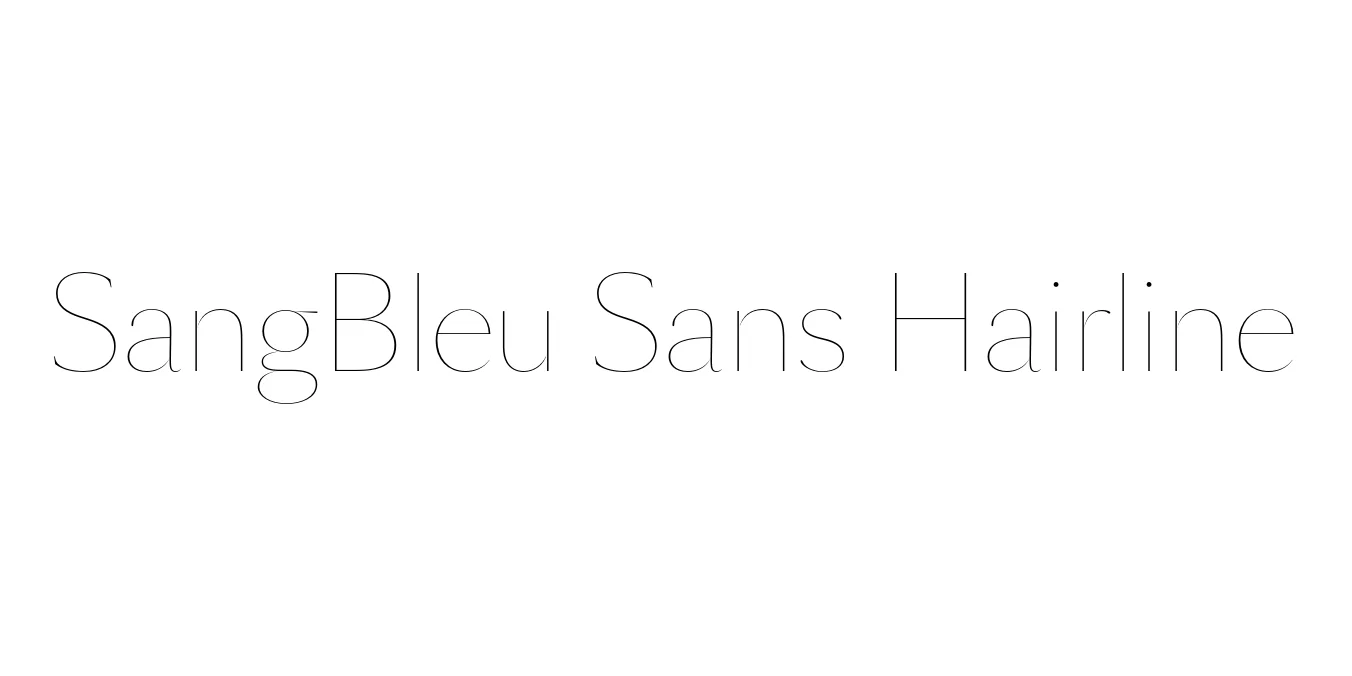
SangBleu Sans Hairline
Designed by Swiss Typefaces
SangBleu Sans is part of the extensive SangBleu typeface family designed by Swiss Typefaces. Released in 2017, the family is known for its sophisticated and high-fashion aesthetic, often associated with luxury brands and editorial design. The Hairline weight represents the most delicate end of the spectrum, featuring ultra-thin strokes that require high-resolution printing or large-scale display use to be fully appreciated.
Unlike traditional sans-serifs, SangBleu Sans Hairline incorporates subtle cues from serif structures, giving it a unique "Roman" feel despite the absence of serifs. Its geometric precision and extreme contrast make it a favorite for vogue-style layouts, luxury packaging, and minimalist digital interfaces. It represents a pinnacle of modern Swiss design, blending classical proportions with contemporary sharpness.
SangBleu Sans Hairline Best Uses
Perfect for high-end fashion magazine headlines and covers.
Ideal for luxury brands and high-fashion logo marks.
Striking for minimalist, large-scale graphic design posters.